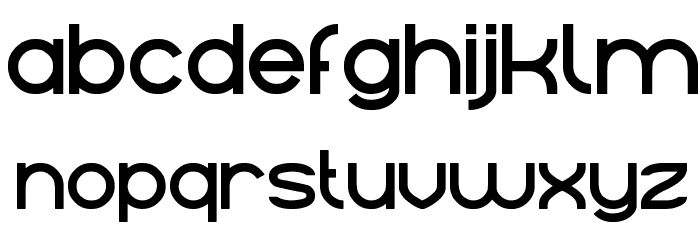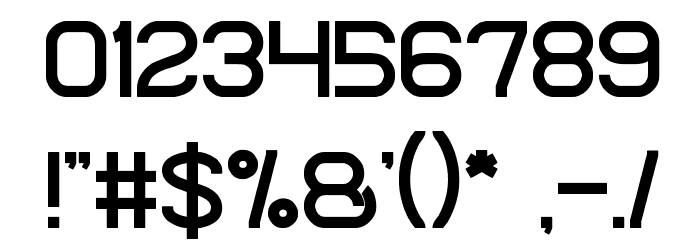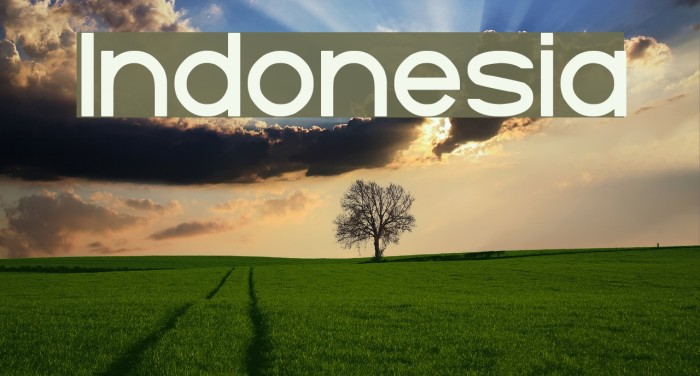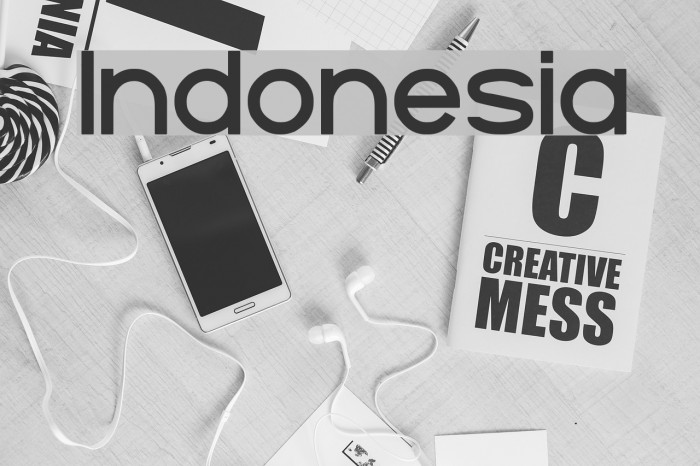
Indonesia Font
This font features a modern, geometric design with clean lines and a uniform structure. The uppercase letters are bold and angular, while the lowercase letters maintain a rounded, softer appearance. The numerals are consistent with the overall style, offering a contemporary look that is both functional and aesthetically pleasing. The special characters are well-integrated, maintaining the font's cohesive design. This typeface is versatile, suitable for a variety of digital and print applications, and its clarity ensures readability across different mediums.
A modern, geometric font with clean lines and a uniform structure.
- Proposed Projects: Ideal for branding, digital interfaces, advertising, and editorial design.
- Use Case: Headlines, Logos, Digital interfaces